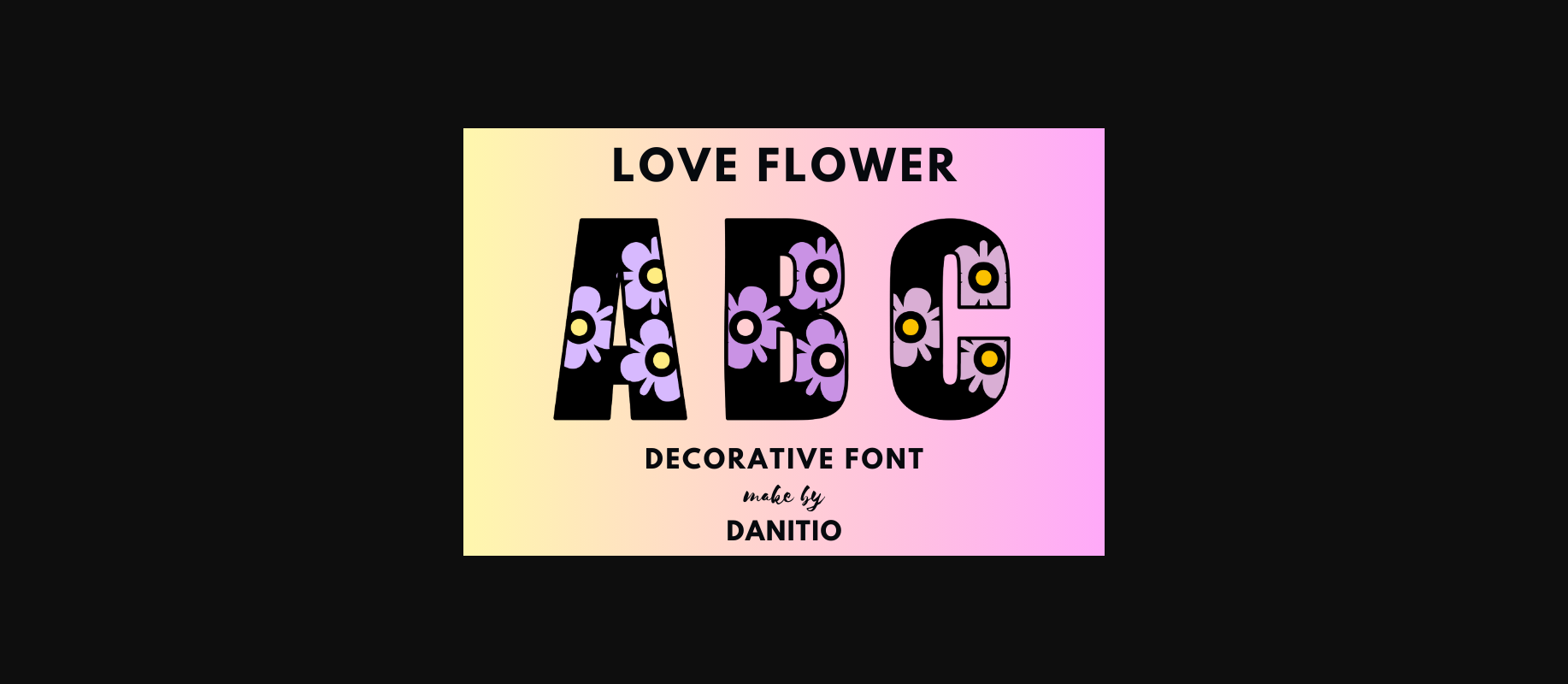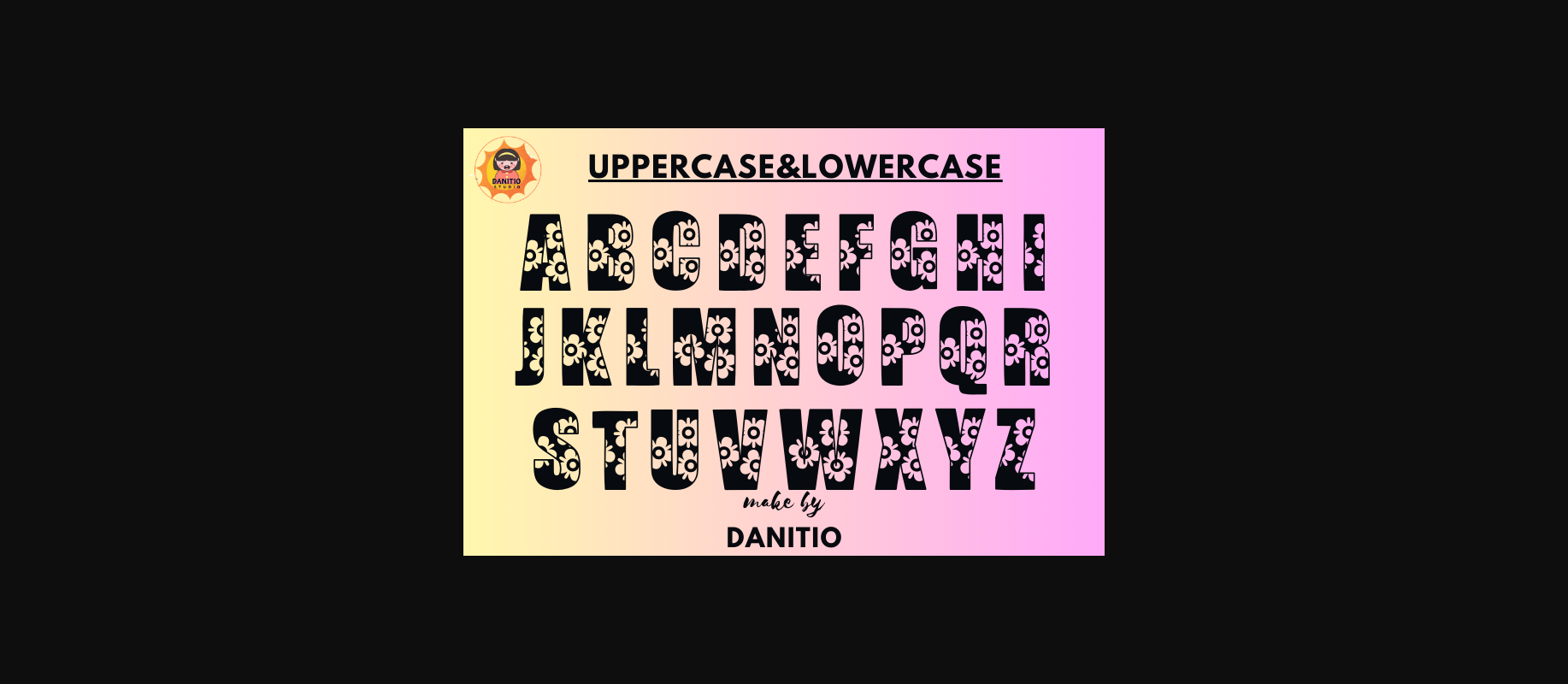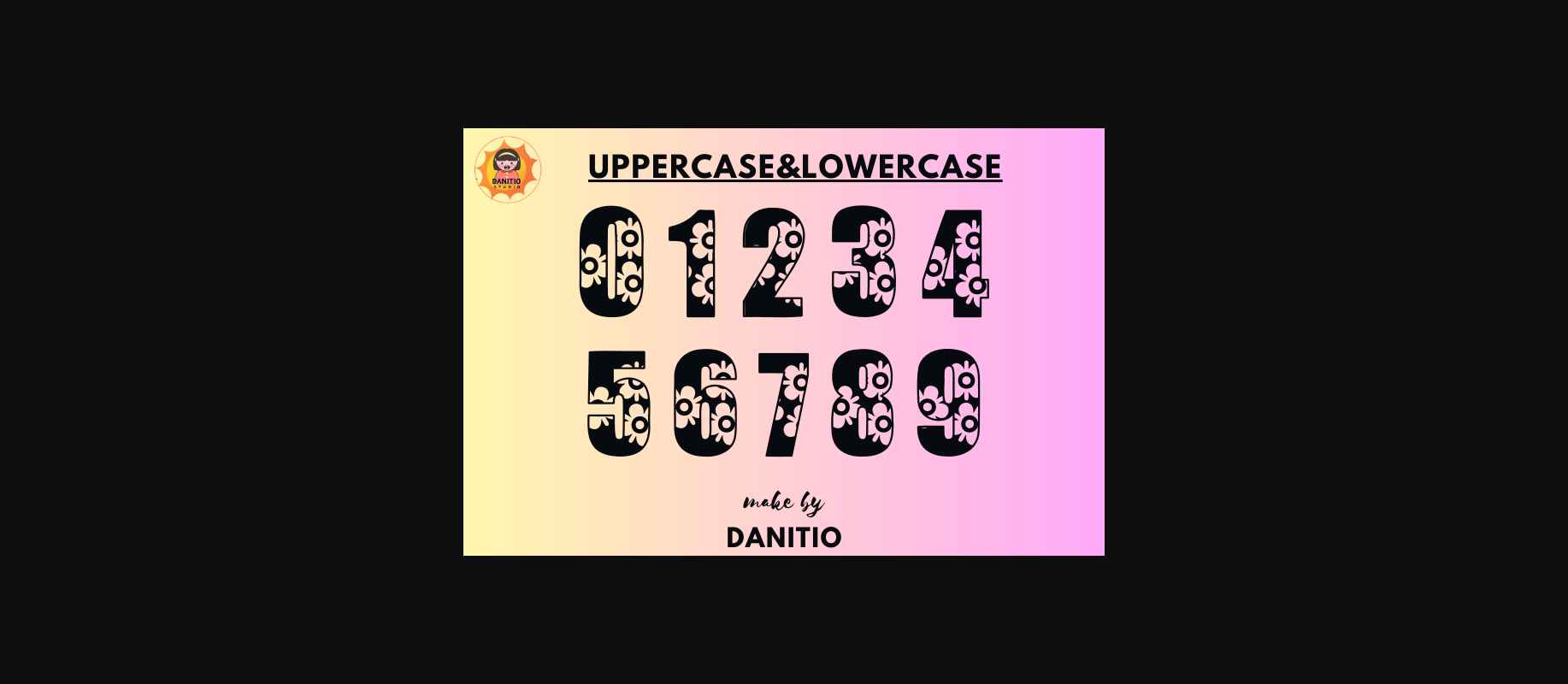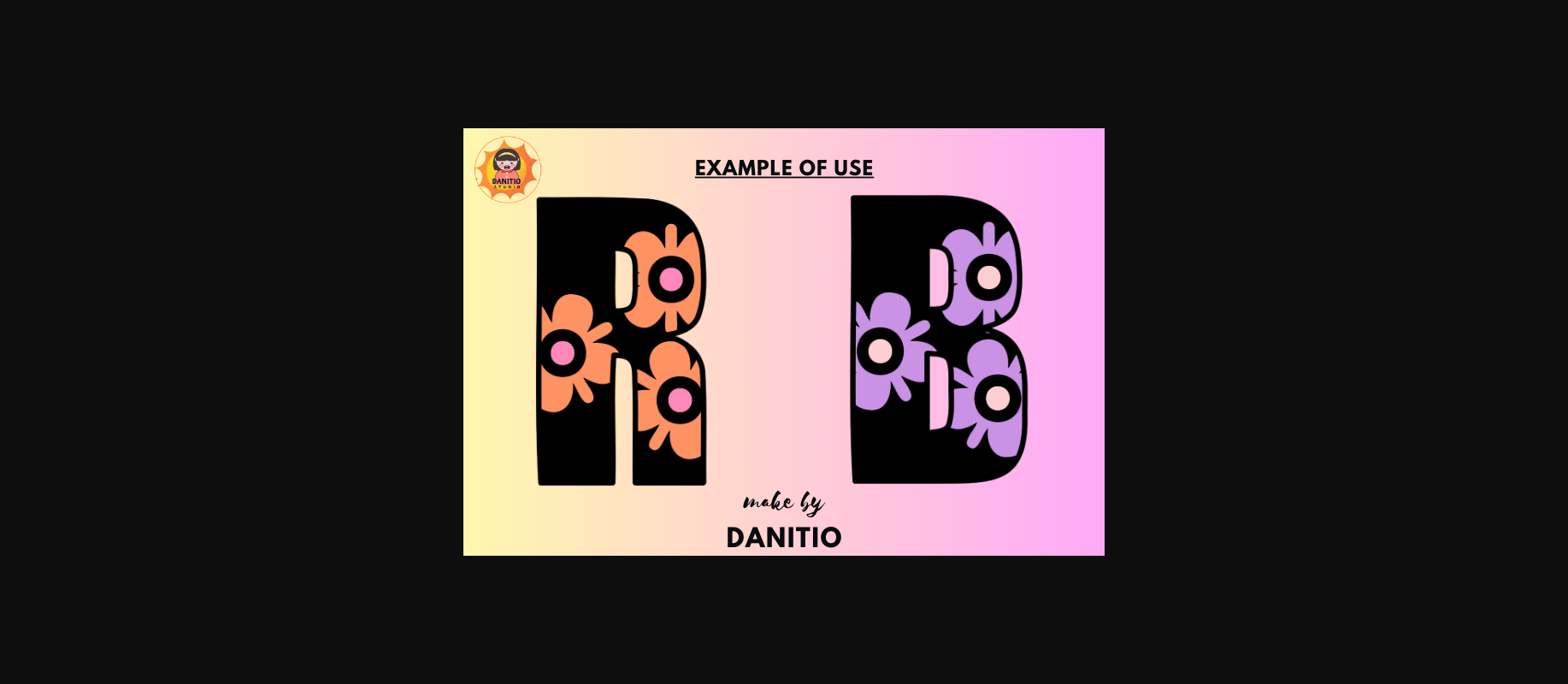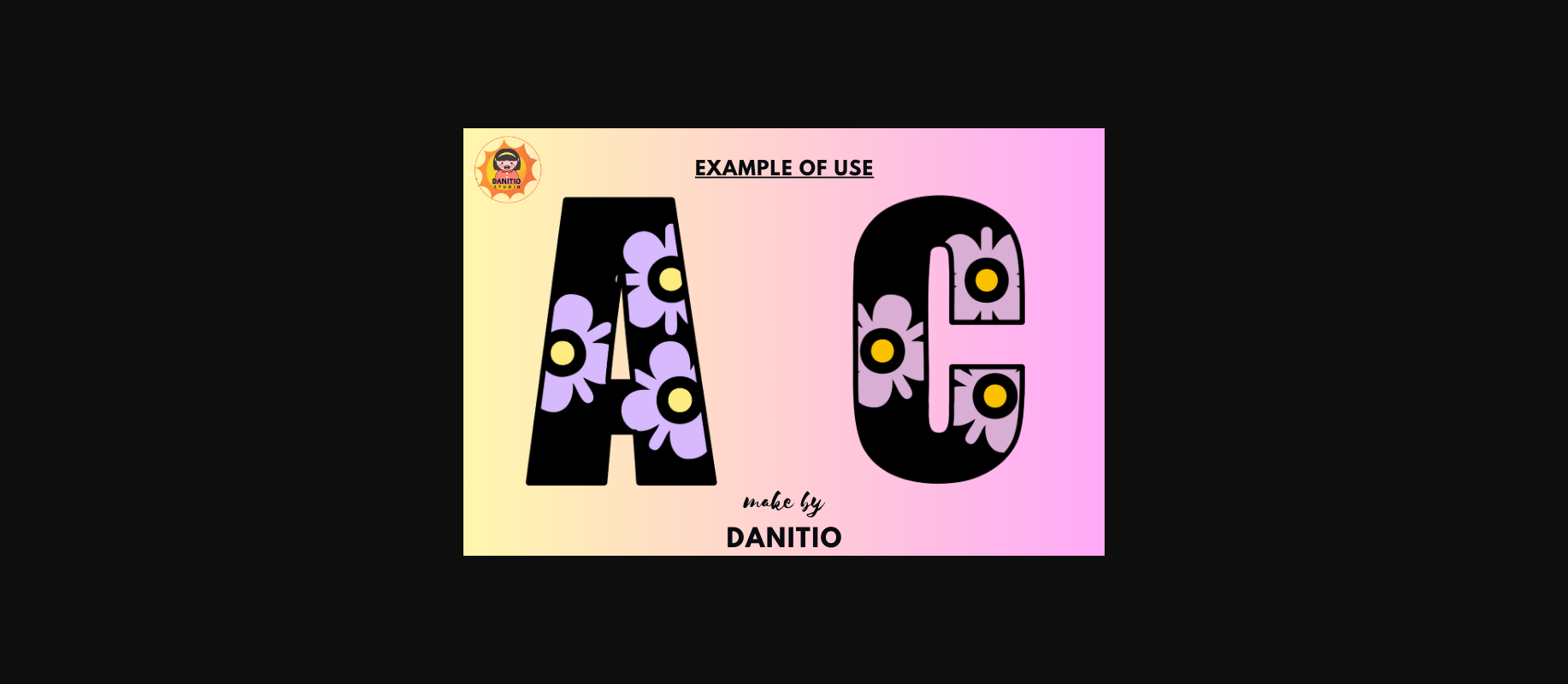
Love Flower Font
About Love Flower Font
Love Flower is a fun and beautiful decorative font. The letters are decorated with many flowers. Perfect for your favorite projects like posters, flyers, and social media posts.Beautiful stationery artwork Eye-catching social media posts and cute greeting cards Or use it on products that you think are appropriate for this font. Hope you enjoy using my fonts.